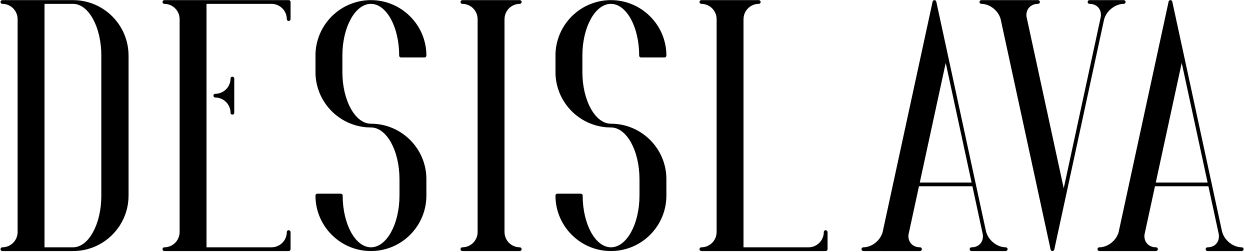
Zengo Font
Zengo font has an exciting decorative design in its character. So prepare yourself to get acquainted with one of the best and most practical ornate fonts for your next decorative projects.
This fancy font does not have lower and number letters, but its uppercase wooden texture letters can give a particular shine to your design in most luxury brands such as jewelry. You can also use it in the wooden texture background to raise your sales.
Designed by: Eva Barabasne Olasz